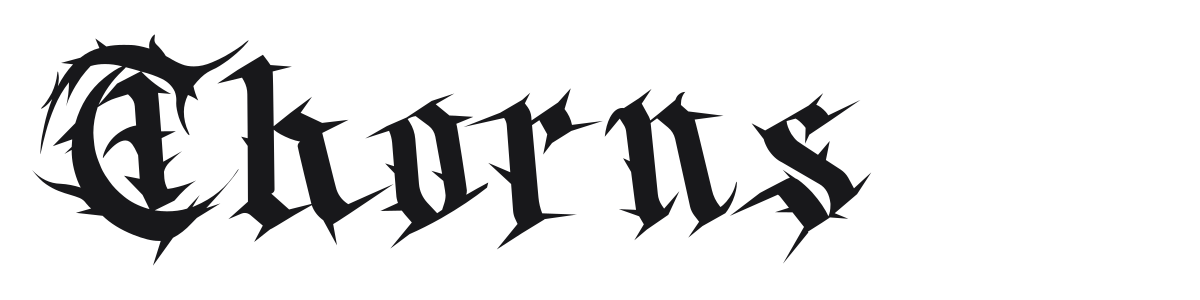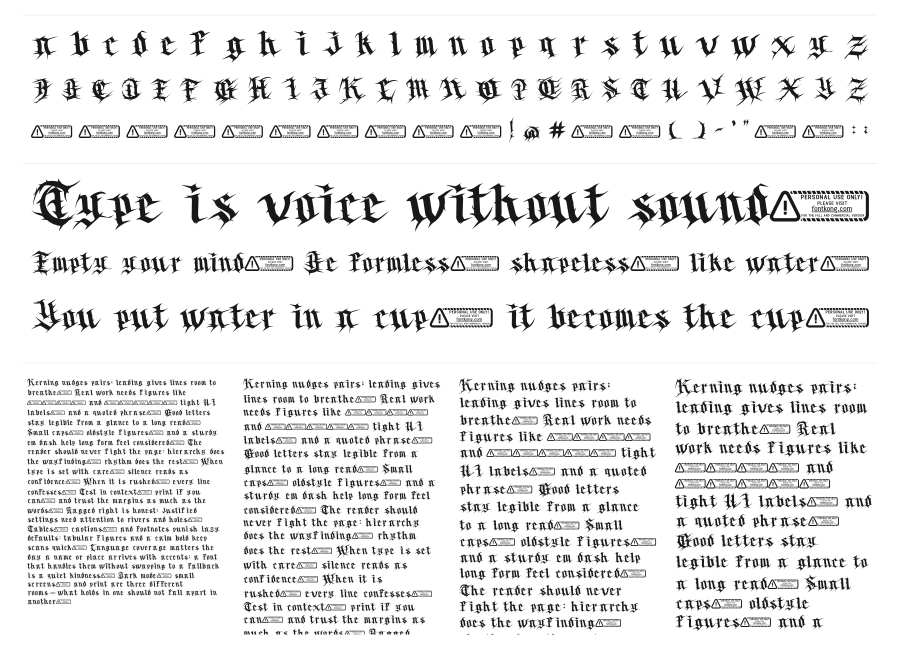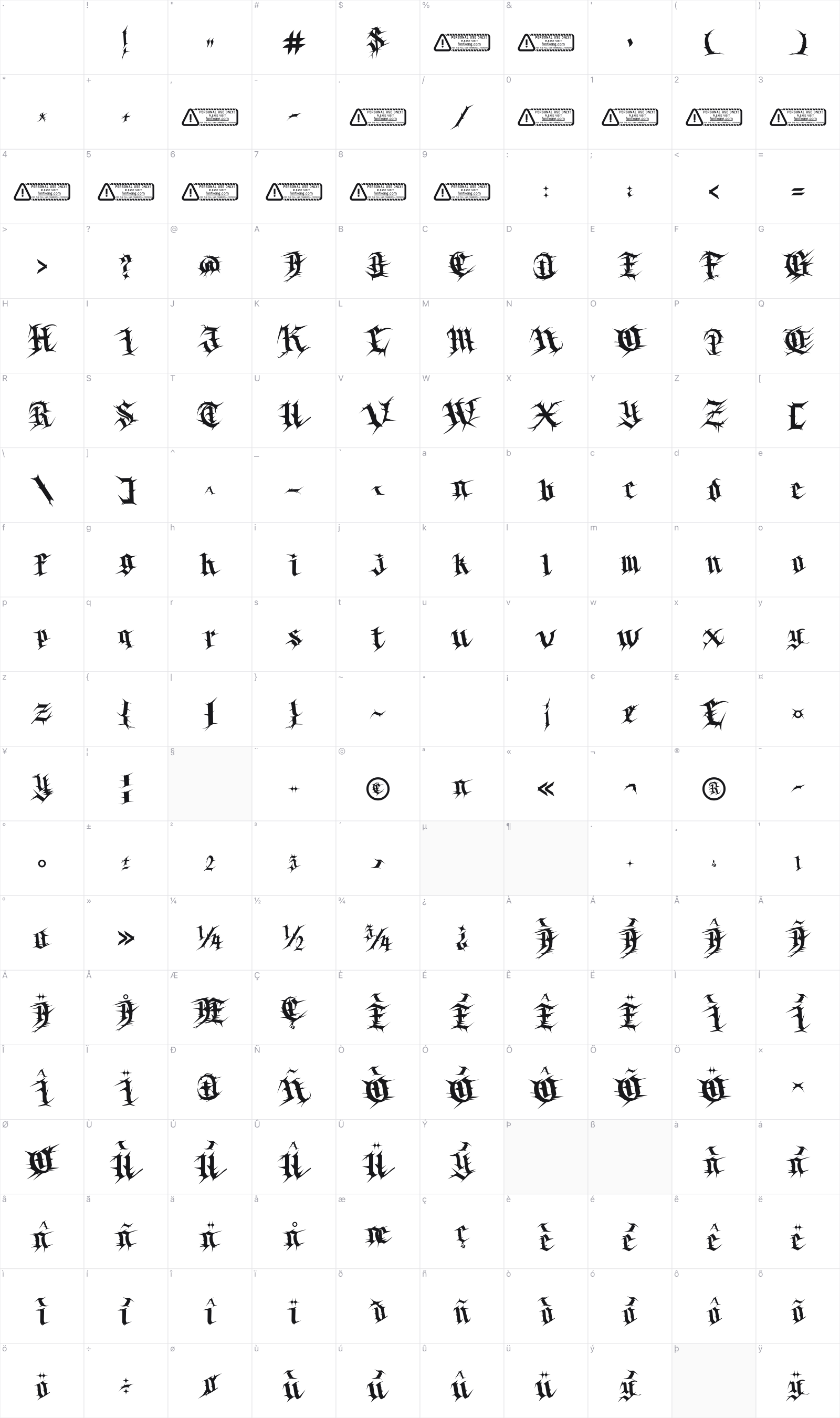
Thorns
Thorns is a heavy Gothic blackletter with sharp, thorned terminals and extreme stroke contrast that leans hard into dark, aggressive aesthetics. The jagged spur details cut outward from each stroke, giving it a texture somewhere between medieval manuscript and metal band logo. It commands attention at large sizes and suits contexts where darkness and drama are the point.